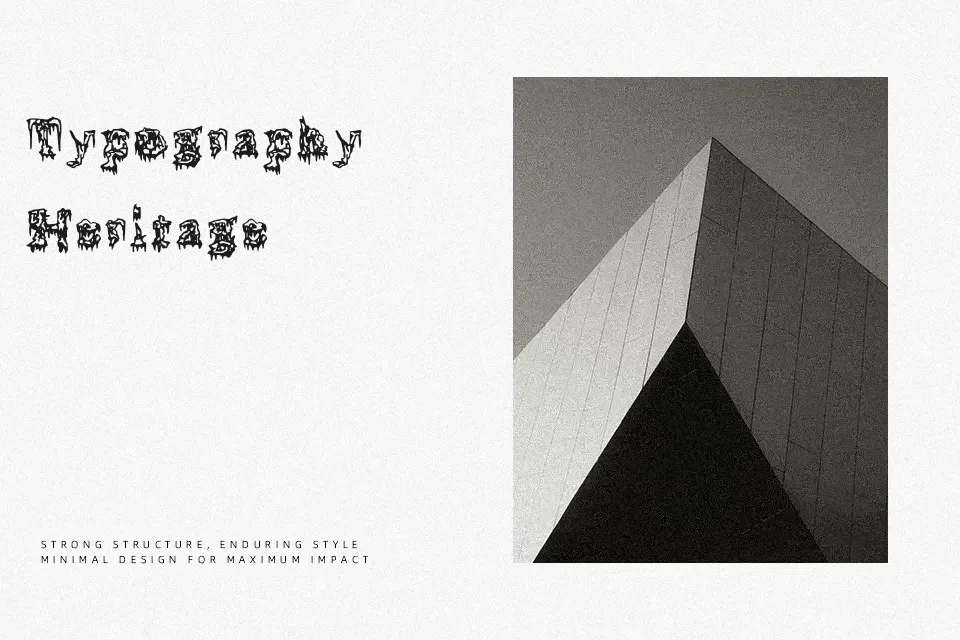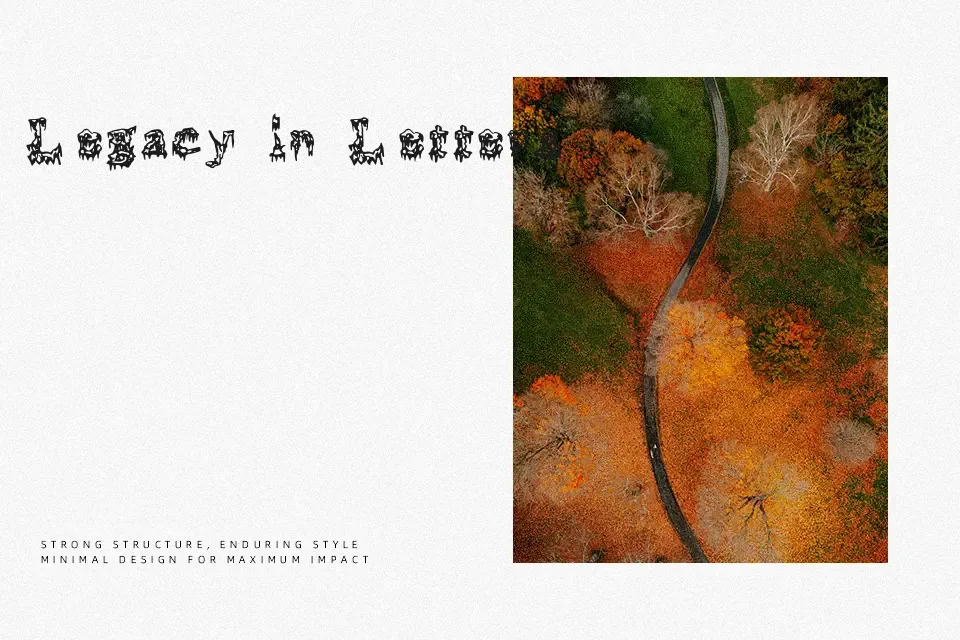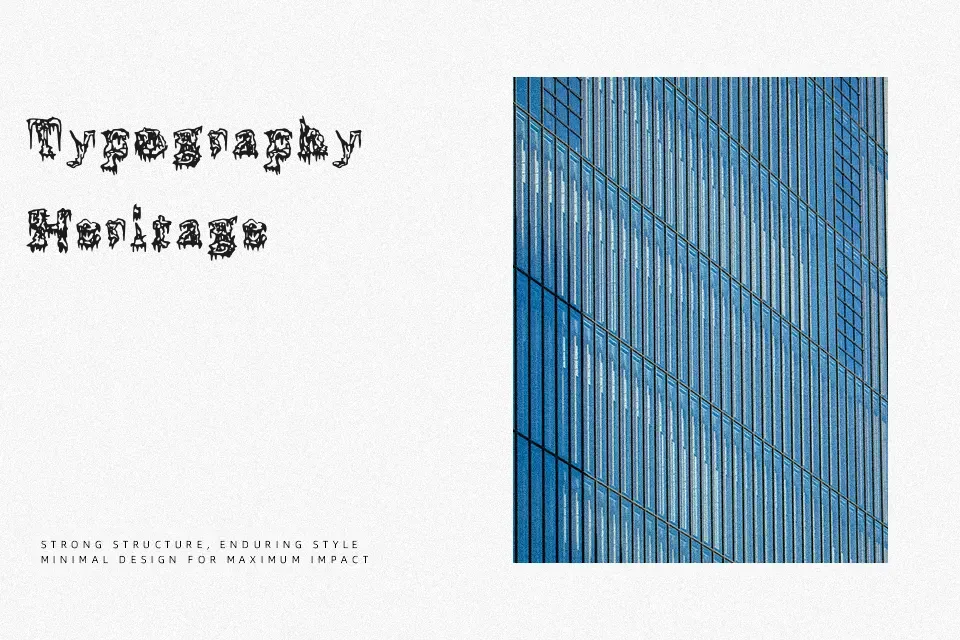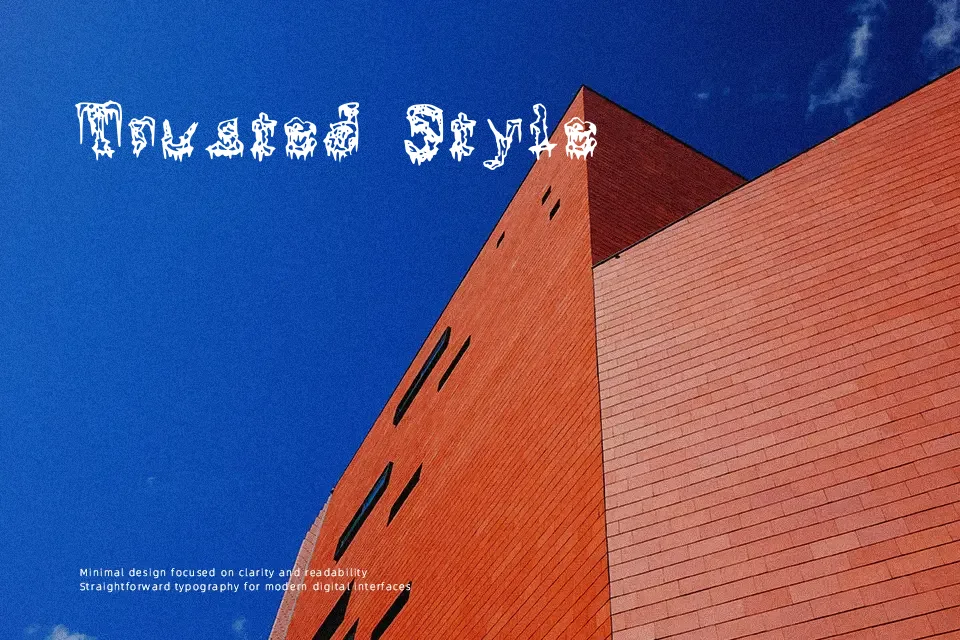
Squelettics Font
Designed by =spark_01=
Squelettics Font uses narrow, bone-like letterforms with uneven contours, pointed details, and a deliberately distressed display rhythm. Its uppercase-focused appearance creates a stark, theatrical texture, while the thin internal shapes and irregular stroke construction give headlines a creepy, handcrafted edge. Spacing appears compact enough to keep short words visually connected in large settings. The design is most effective for Halloween artwork, horror-themed titles, and poster-scale statements. Decorative details make individual letters memorable, but they become harder to distinguish in small text or longer passages. It is a practical choice when atmosphere matters more than sustained reading comfort.
Best For: Halloween posters,haunted house signage,horror game titles,spooky social media graphics
Perfect for film, halloween, and headline, with a dark and decorative style.